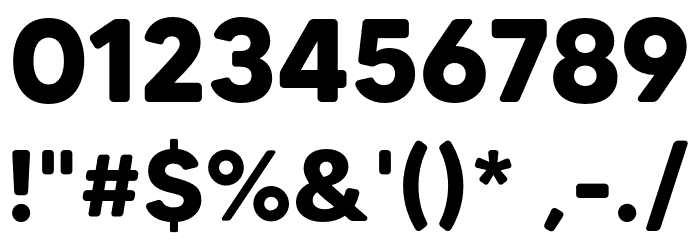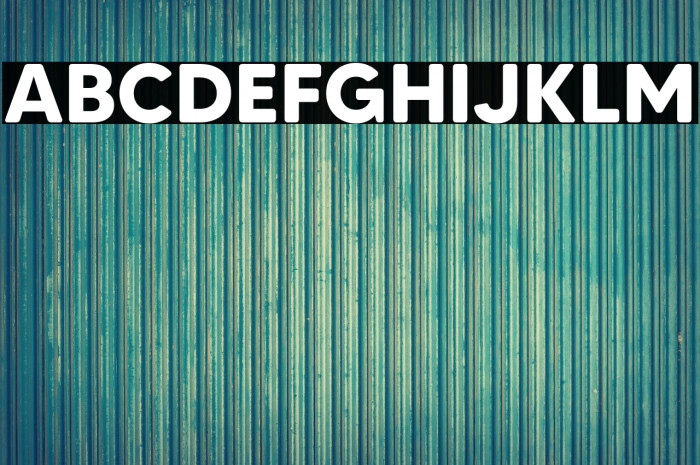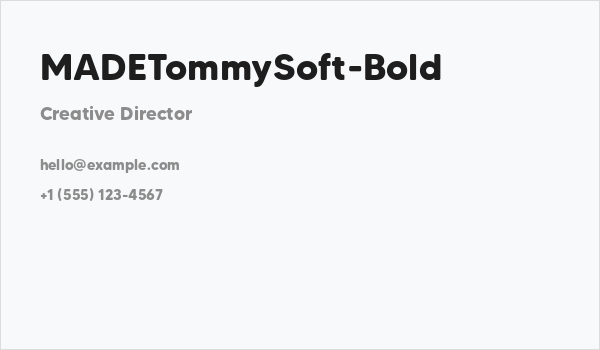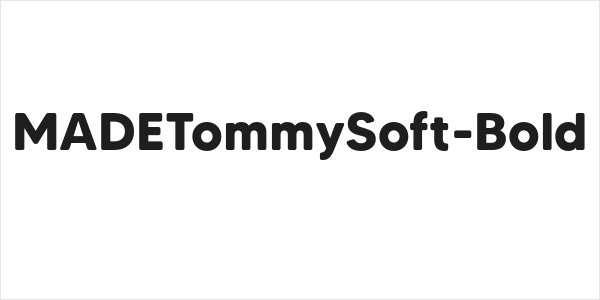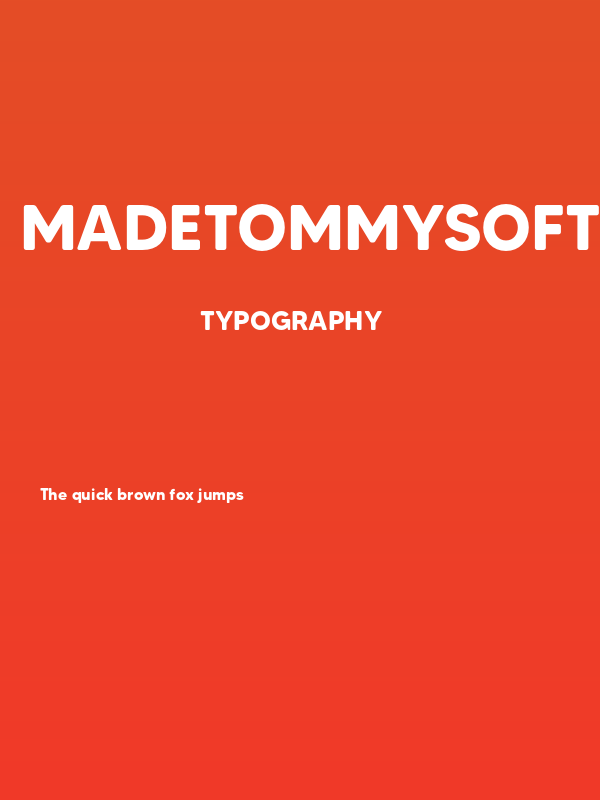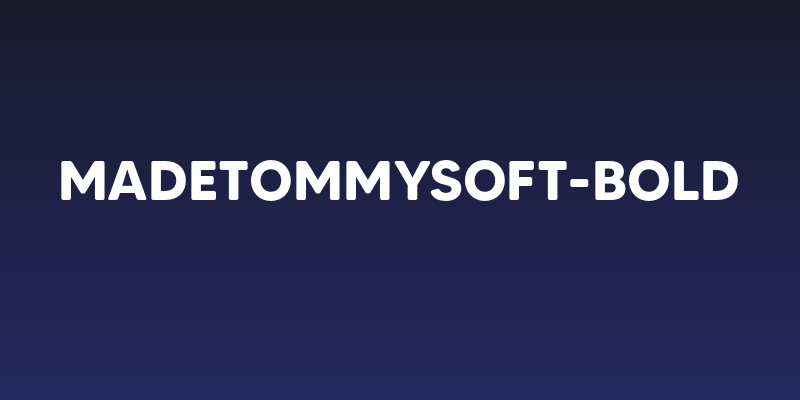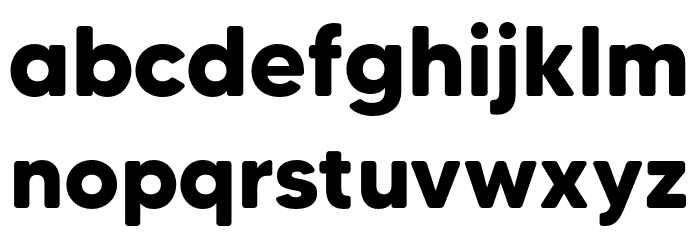
MADETommySoft-Bold Font
MADETommySoft-Bold Description
This font features a bold and rounded sans-serif style, characterized by its smooth curves and uniform stroke width. The uppercase and lowercase letters maintain a consistent height, creating a harmonious and balanced appearance. The numerals are clear and easily distinguishable, while the special characters are well-integrated, maintaining the overall aesthetic. The font's design is modern and friendly, making it suitable for a wide range of applications. Its boldness ensures high readability, even at smaller sizes, while the rounded edges give it a soft and approachable feel.